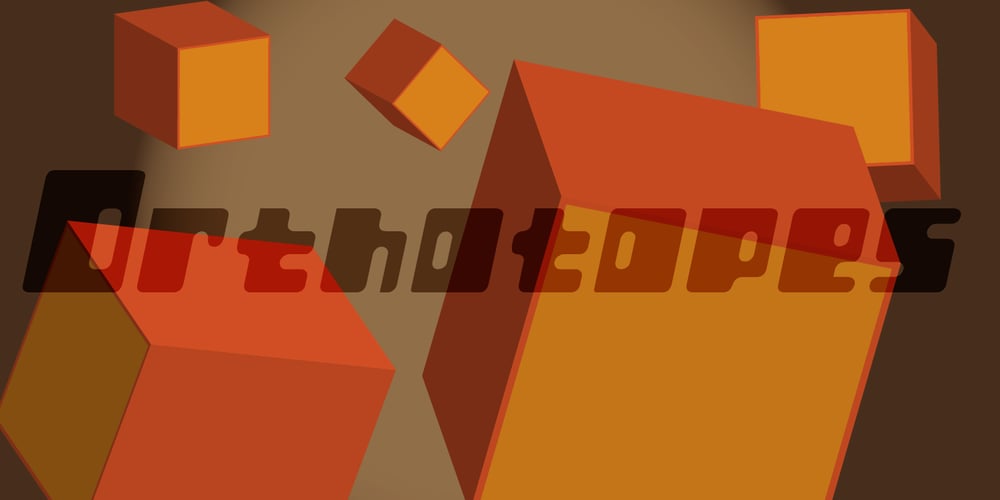
Orthotopes
Orthotopes font
Orthotopes Font Family was designed by Rob Barba and published by Megami Studios. Orthotopes contains 4 styles and family package options. Orthotopes is reminiscent of that ever-familiar 70s style sci-fi font whose name I cannot recall and probably doesn’t look a thing like this anyway.